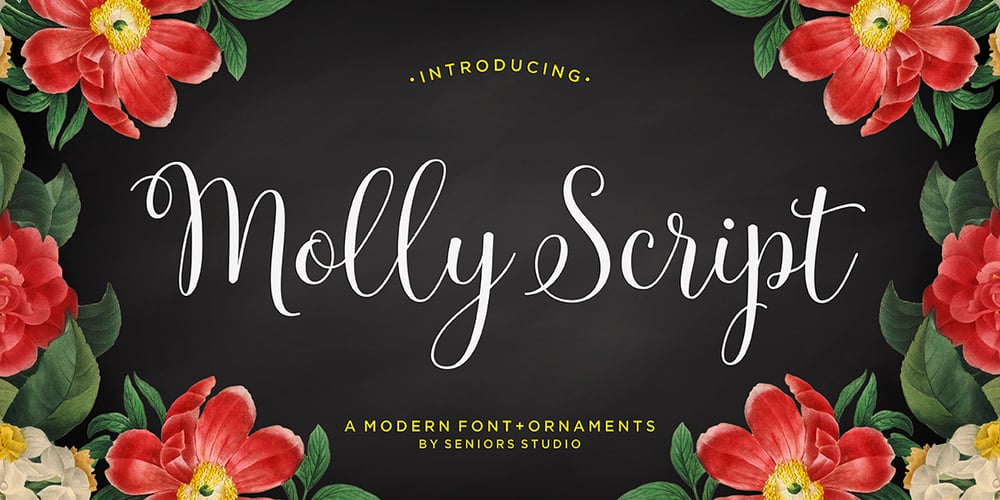
Molly Script Font Family was designed by Seniors Studio and published by Seniors Studio. Molly Script contains 3 styles and family package options. Molly Script is modern handwritten calligraphy typeface with dancing up and down the baseline. that comes with lovely alternates. It works perfectly for logos, fashion, stationery, letterpress, magazines, menus, books, invitations, wedding / greeting cards, packaging, labels, apparel, marketing etc. Molly Script features 515+ glyphs and 299 alternate characters. including initial and terminal letters, alternates, ornaments, ligatures and multiple language support. To enable the OpenType Stylistic alternates, you need a program that supports OpenType features such as Adobe Illustrator CS, Adobe Indesign & CorelDraw X6-X7, Microsoft Word 2010 or later versions. There are additional ways to access alternates/swashes, using Character Map (Windows), Nexus Font (Windows), Font Book (Mac) or a software program such as PopChar (for Windows and Mac).